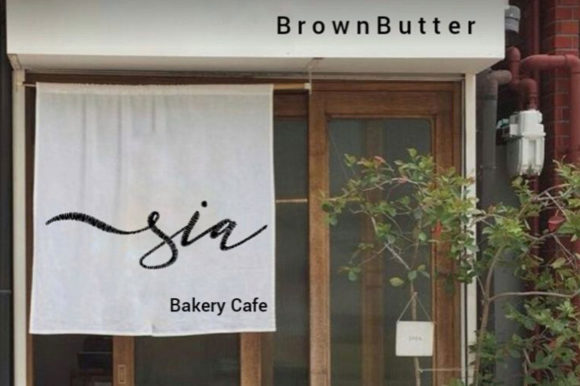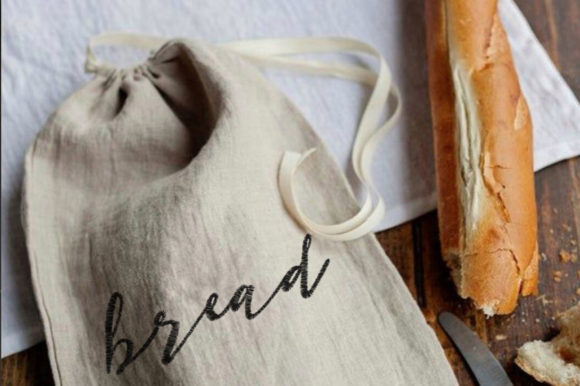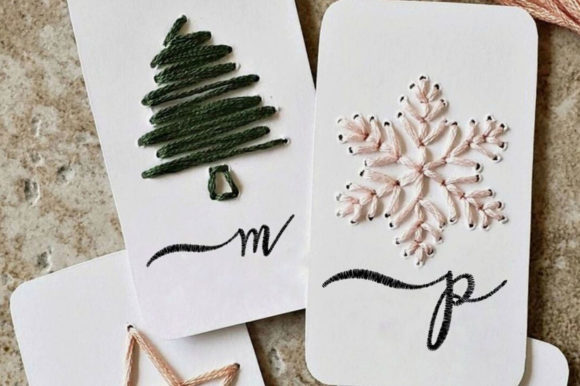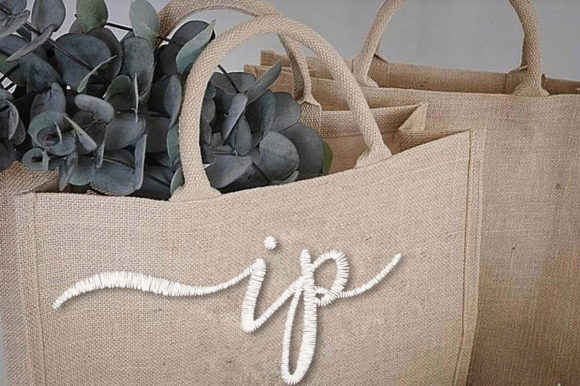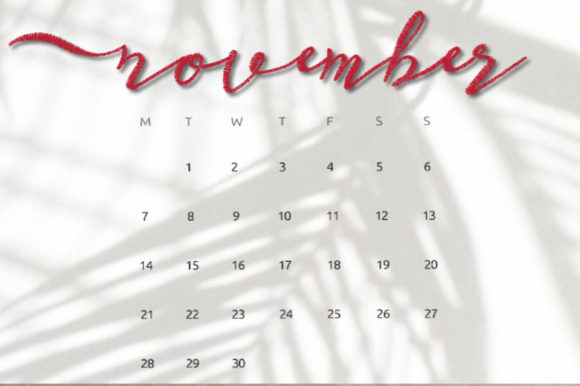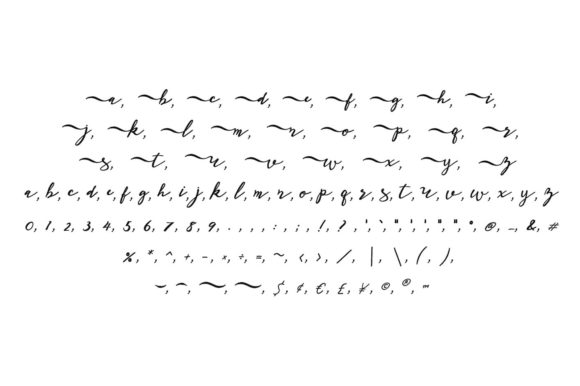
Introduction to Sia Font
Have you ever stumbled upon the perfect font that elevates your creative project to the next level? That ‘aha’ moment when everything falls into place, and your design becomes a true masterpiece? For many designers, that moment is what makes all the hard work worth it. For those who have experienced it, they know that the right font can be the difference between a good design and a great one.
That’s where the Sia Font comes in – a lovely and flowing, brushed script font that is perfect for making any creative idea shine. Whether you’re looking for fonts for Instagram or calligraphy scripts for DIY projects, this font will turn your vision into a reality. With its high quality design and transparent background, the Sia Font is a valuable resource for designers looking to add a touch of elegance to their projects.
Sia Font
- High-quality font design for creative projects, ideal for graphic designers and artists.
- Features a transparent background, making it easy to overlay text onto images or other design elements.
- Designed with a modern and sleek aesthetic, perfect for use in logos, branding, and other design projects.
Honest Review: Sia Font
I recently had the chance to work with the Sia Font, and I must say it’s been a game-changer for my creative projects. ✨ This high-quality font is perfect for designers looking for a unique touch to their designs.
- High-quality design: The Sia Font is beautifully crafted and looks amazing in any design.
- Transparent background: This makes it easy to work with and customize to fit my design needs.
- ⚠️ Limited character set: The Sia Font only includes a limited set of characters, which may not be suitable for all design projects.
- ⚠️ Not suitable for large-scale use: While the font is great for small to medium-sized projects, it may not be the best choice for large-scale use due to its limited character set.
Overall, I’m really impressed with the Sia Font and would definitely recommend it to designers looking for a unique and high-quality font for their creative projects.
Tips for Getting the Most Out of Sia Font
To get the most out of the Sia Font, use it in combination with other design elements to create a cohesive look.
Experiment with different font sizes, colors, and styles to add depth and visual interest to your design.
Common Use Cases for Sia Font
The Sia Font is perfect for:
• Branding and logo design
• Brochures and flyers
• Social media graphics and ads
• Wedding invitations and stationery